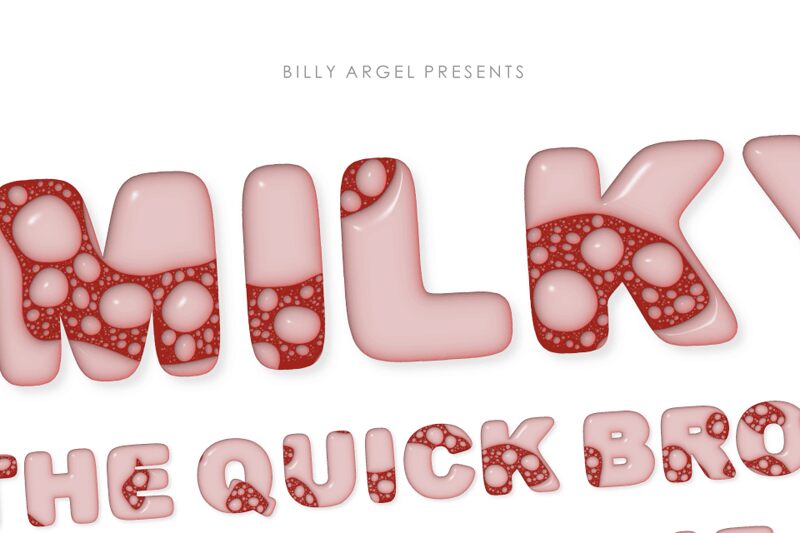
MILKYWAYPERSONALUSE-Bold
MILKYWAY Bold is a mesmerizing display font created by Billy Argel Fonts. Its decorative style and extra-bold weight make it perfect for eye-catching design projects that aim to stand out from the crowd. With its semi-expanded width, MILKYWAY Bold adds a touch of uniqueness and elegance to any creative endeavor.
Whether you're working on logo designs, poster layouts, or website headers, this font will bring a celestial charm to your projects.
Let MILKYWAY Bold guide your design journey through the vastness of artistic expression.
Billy Argel